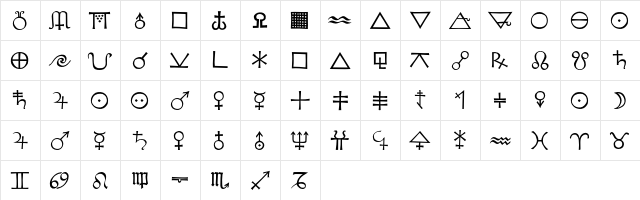
KochSigns Three
Design Context for KochSigns Typeface
KochSigns takes a measured approach to typography — its balanced proportions and neutral character make it a reliable workhorse for both digital and print work.